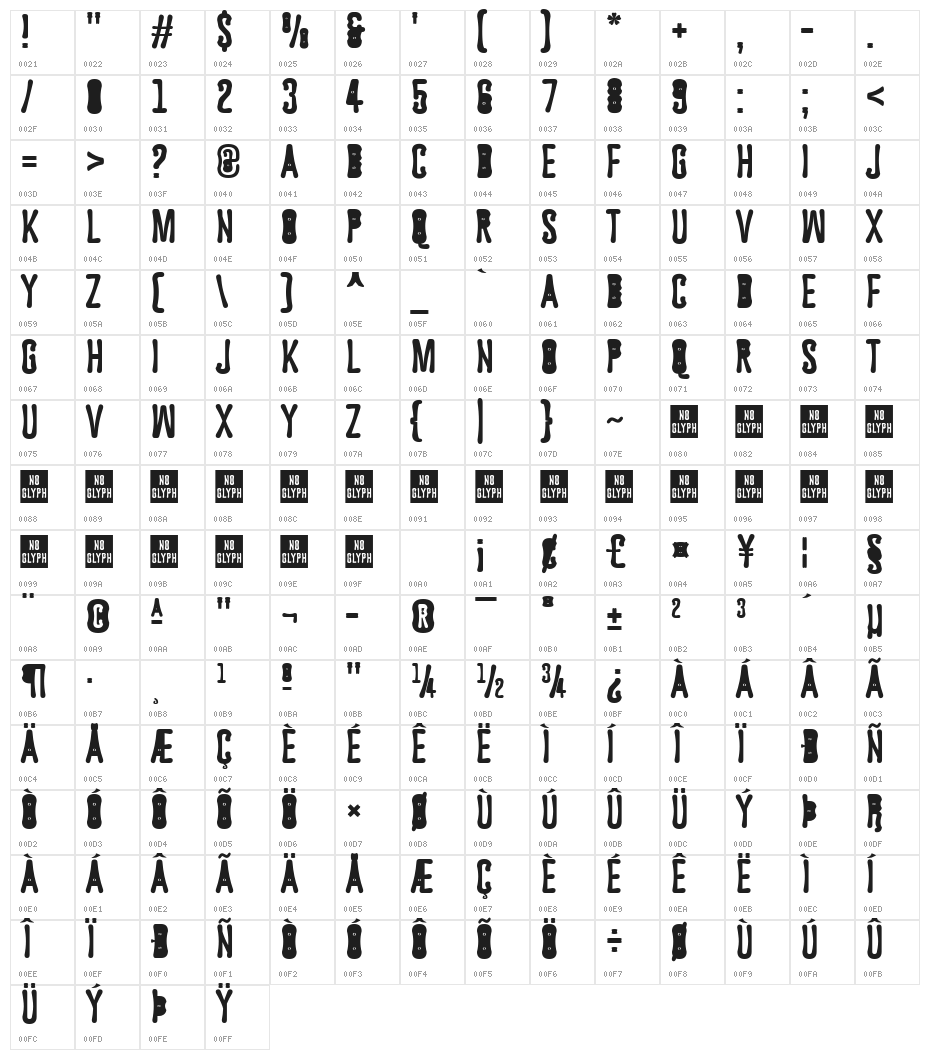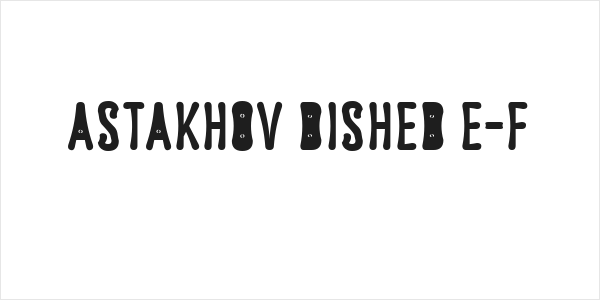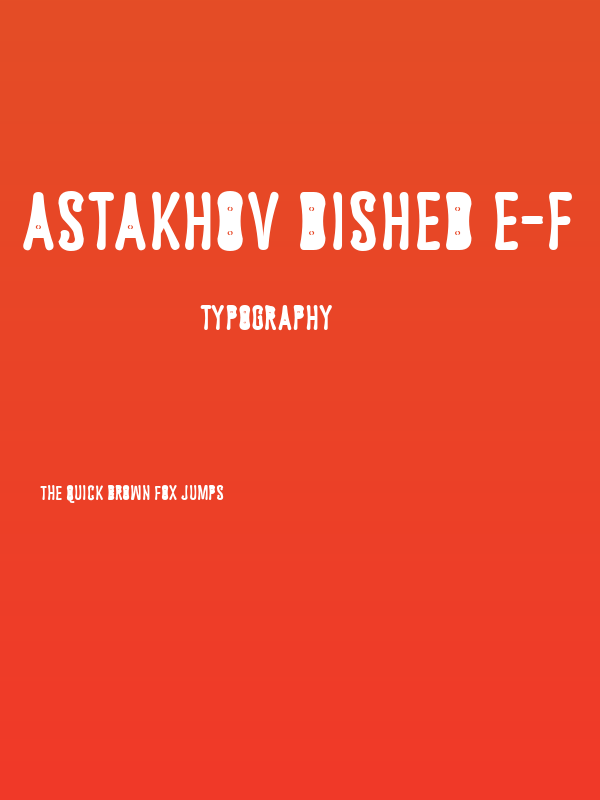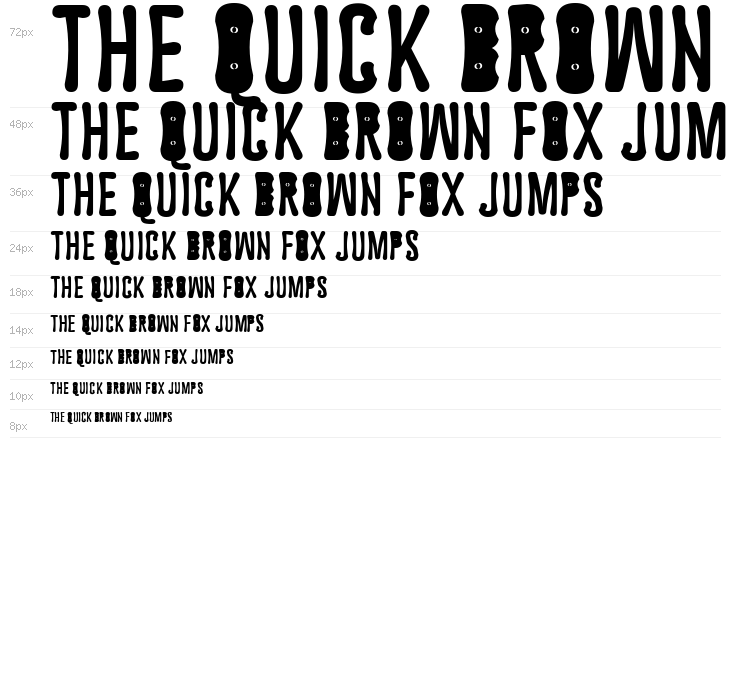
Astakhov Dished E-F Font
Astakhov Dished E-F Description
This font features a playful and quirky design with bold, rounded characters that have a unique, slightly irregular shape. The letters are thick and have a whimsical appearance, making them stand out with a cartoonish flair. The numbers and special characters follow the same style, maintaining consistency throughout the set. The font's distinct personality is emphasized by its exaggerated curves and bold presence, making it ideal for creative and fun projects.
| Proposed Projects | Ideal for children's books, comic strips, playful branding, and creative posters. |